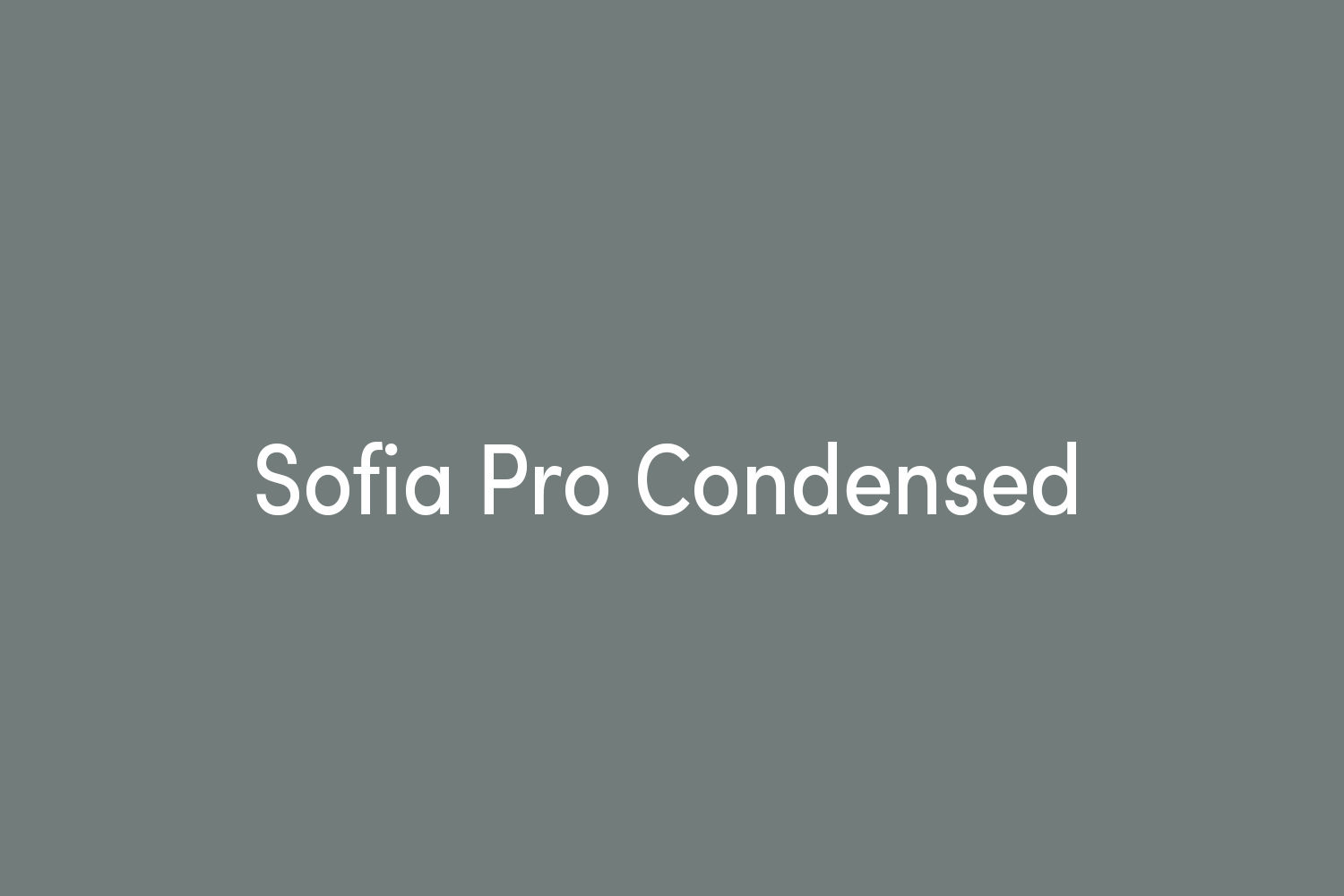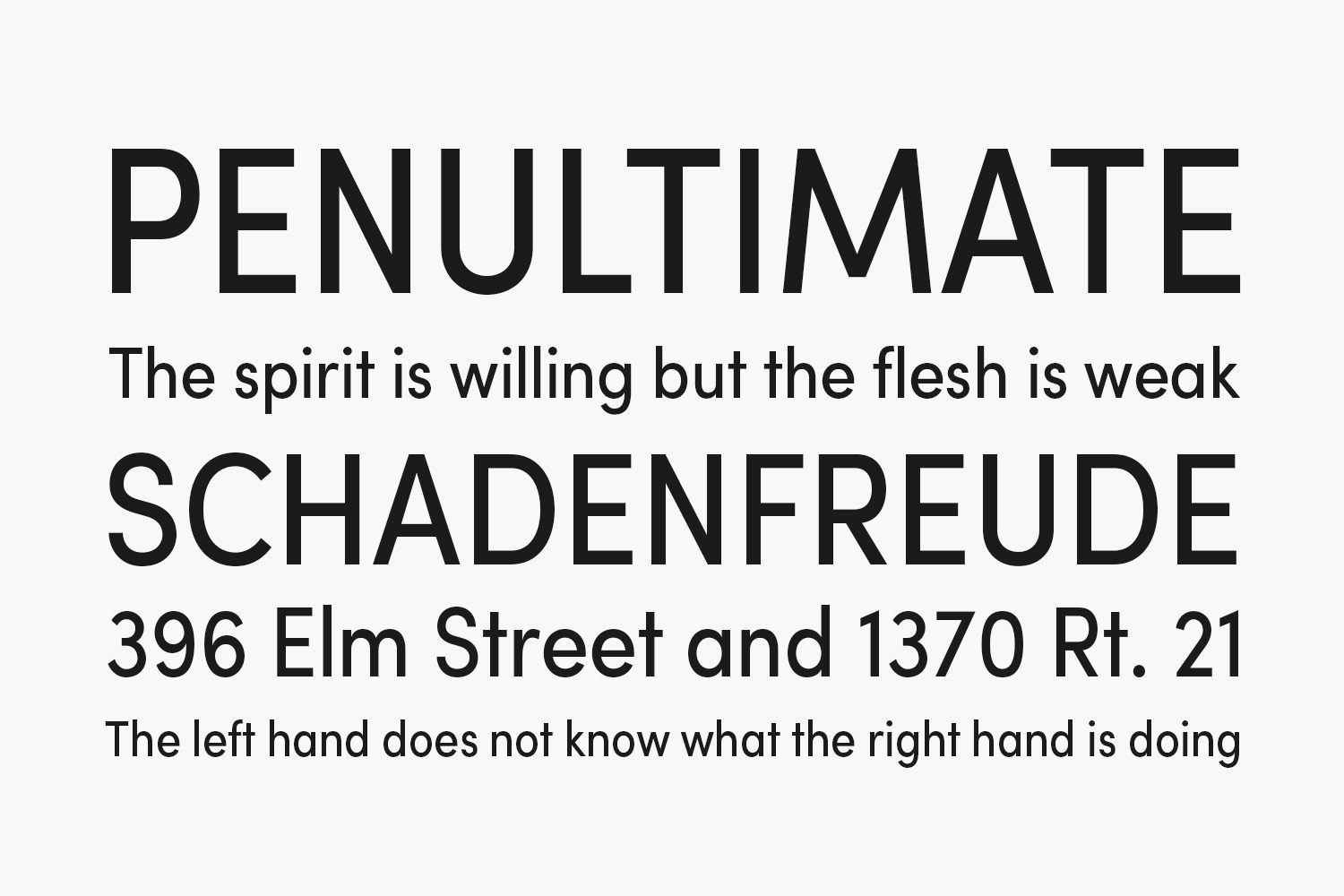
Sofia Pro Condensed is a true condensed family designed by Olivier Gourvat in 2012. This new typeface gives an impression of modernism, harmony and roundness.
Sofia Condensed is the ideal companion of Sofia Pro for longer texts, newspapers, magazines and this typeface supports now a wide range of languages with more than 500 glyphs.
This new version has also Opentype features like case sensitive forms, small caps, contextual alternatives, stylistic alternates, fractions, proportional and tabular figures.